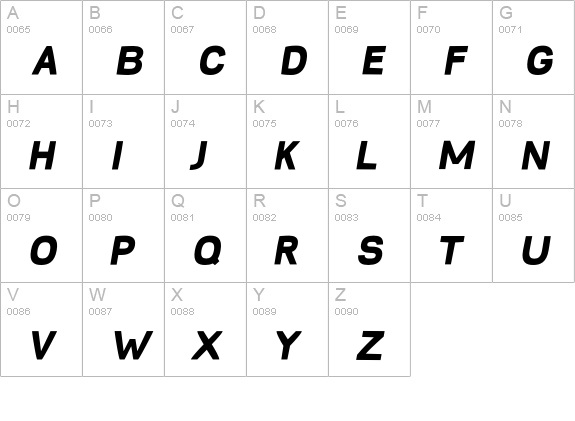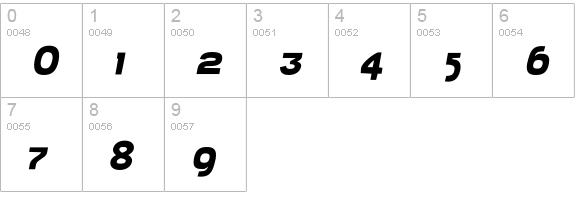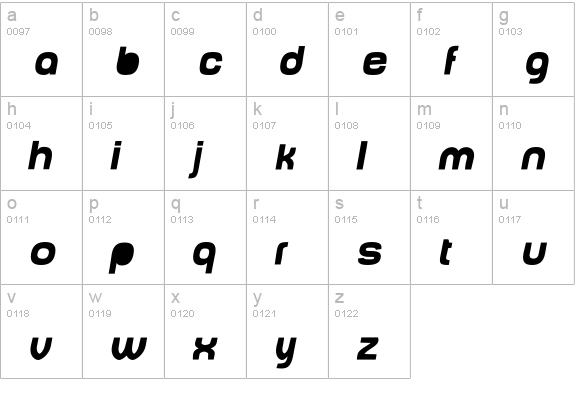
BabyMineFatOblique Font Details
Introducing BabyMineFatOblique, a charming and playful font that will add a touch of whimsy to your designs. This delightful typeface features a unique oblique style, with gently curved letters that exude a sense of friendliness and warmth. BabyMineFatOblique is perfect for a variety of design projects, from children's books and greeting cards to logos and branding. Its bold and chubby letterforms make it highly legible, ensuring that your message will be easily read and understood. But what sets BabyMineFatOblique apart is not just its adorable design, but also the fact that it is free! Yes, you read that right. This font is freely available to download at FontsMarket.com, making it accessible to designers and creatives of all backgrounds and budgets. Whether you're a professional designer or a hobbyist, you'll appreciate the versatility and flexibility that BabyMineFatOblique offers. Its playful nature invites experimentation and encourages you to explore different creative possibilities. You can use it to evoke a sense of childlike wonder or to add a touch of whimsy to any project. So why wait? Download BabyMineFatOblique today from FontsMarket.com and let your imagination run wild. Create captivating designs that captivate and delight, all with the help of this charming and freely available font.